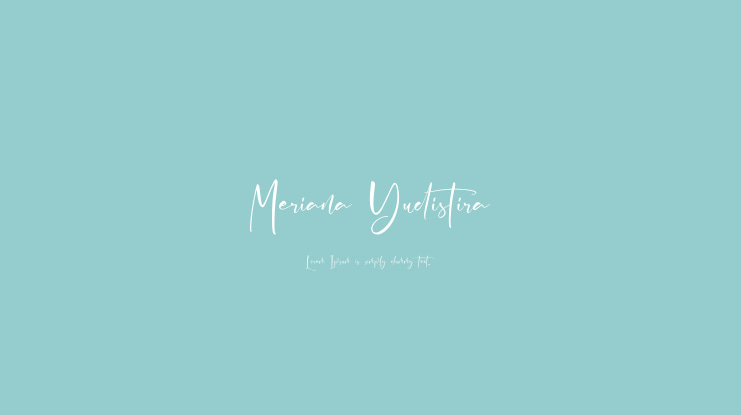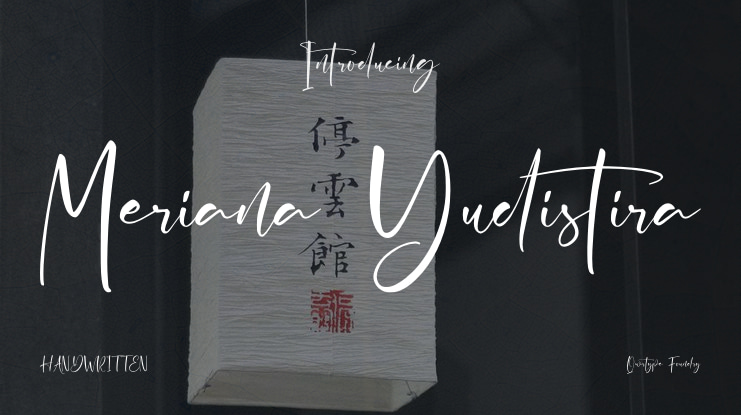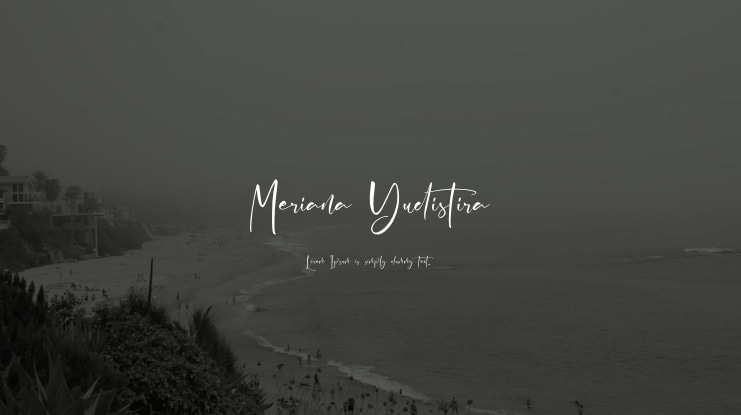
Meriana Yudistira Font
Introducing Qwrtype's latest creation:
Presenting Meriana Yudistira, a modern handwritten font.
Meriana Yudistira is the perfect choice for various applications such as product packaging, branding projects, magazines, social media posts, weddings, or any other creative projects where you want to display words above an attractive background.